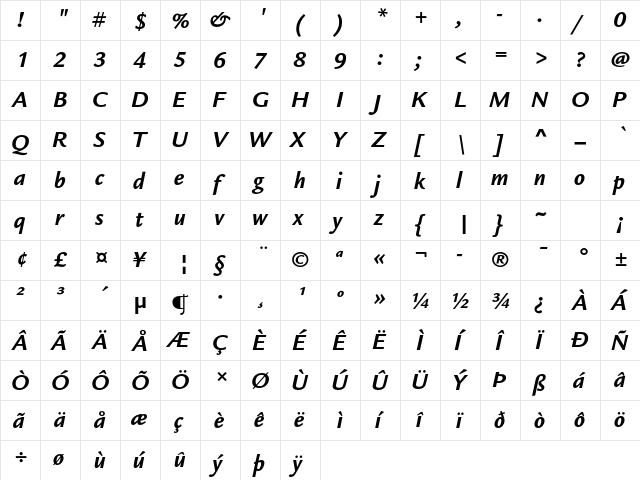
Legacy Sans ITC Std Bold Italic Font Preview
| Designer | Ronald Arnholm |
Design Context for Legacy Sans ITC Std Typeface
Legacy Sans ITC Std offers clean, dependable letterforms without strong stylistic allegiance, making it a practical choice for designers who need flexibility. Its italic angle brings a sense of urgency and motion to the letterforms. The heavy weight commands attention and anchors typographic hierarchies.
Pro Tip: Try Legacy Sans ITC Std for annotation and caption copy alongside an upright companion — the contrast in angle creates a dynamic but ordered typographic system.